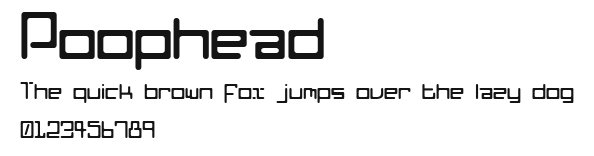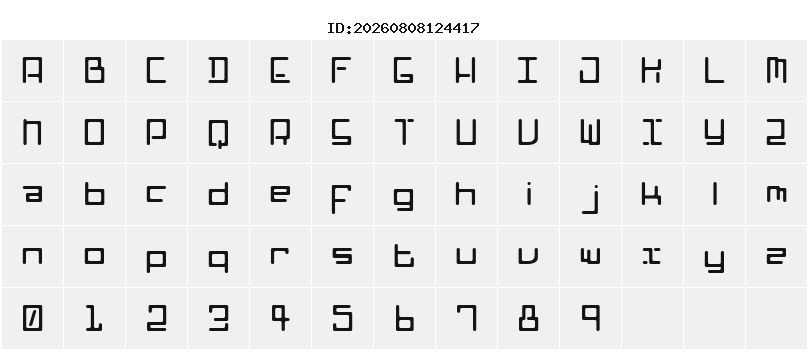
• Font Name: Poophead
• Full Font Name: Poophead
About Poophead.ttf
Poophead.ttf is a modern, elegant sans-serif font designed for ultimate readability and visual harmony. Perfect for branding, headlines, web design, and print materials.